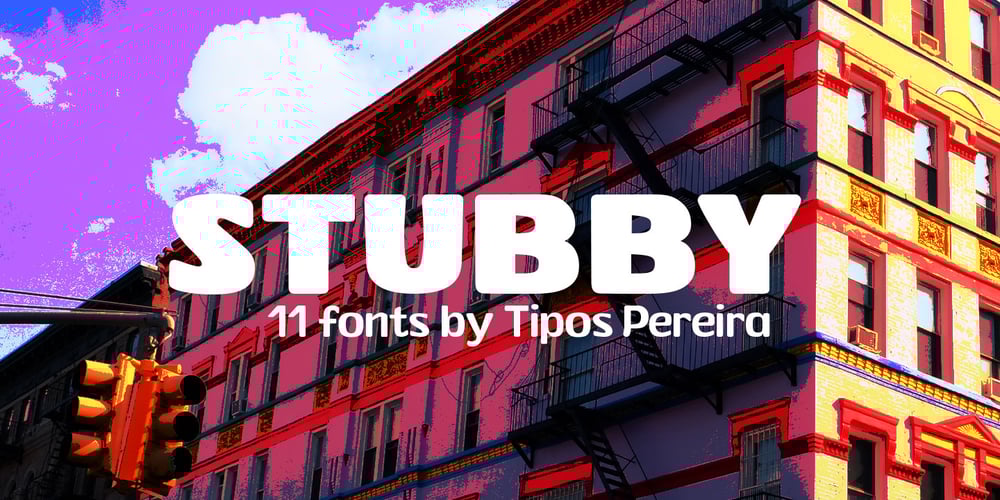
Stubby Font Family was designed by Marcelo Magalhães Pereira and published by Tipos Pereira. Stubby contains 11 styles and family package options. Stubby is a display type family with 11 styles, was made for titles, headlines and also packages, posters and everything that provide space for a rude, fat and widish type. You should try Stubby in your text blocks if you’re looking for an informal shape with some handwriting taste, there are eleven styles mixing from a narrowed thin to a sloppy ultrabold. Stubby has a tight spacing made to fit in squeeze places, not so elegant or clean but definitely an original choice for your real life project.